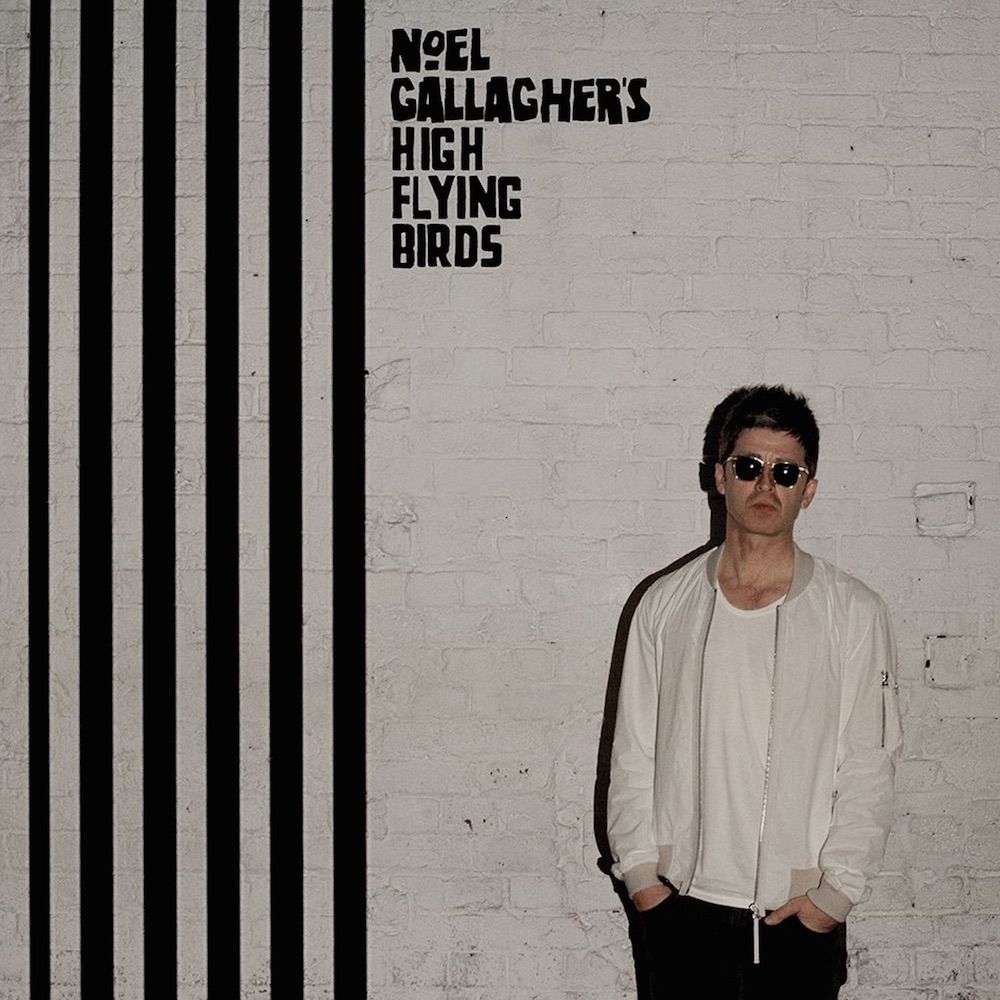
Chasing Yesterday Font
Fonts in UseChasing Yesterday is the second solo album by Noel Gallagher, the former guitarist, and songwriter of Oasis. It was released in 2015 and features a blend of rock, blues, and psychedelic influences.
It is likely that the letters featured on the album cover were drawn by hand. However, there is a free font called "Noel Gallagher" created by xpeehdroox that replicates the lettering style and can be downloaded at no cost from the Fonts Used Section.